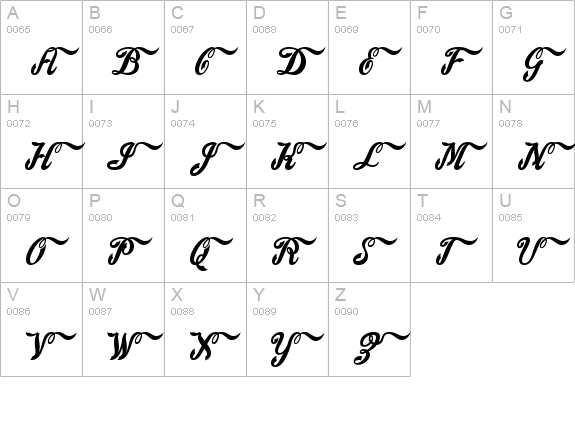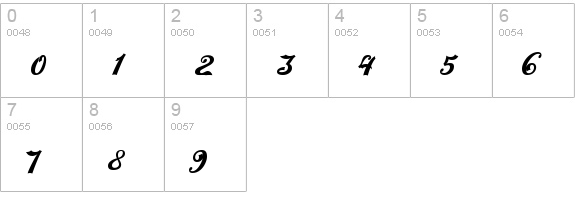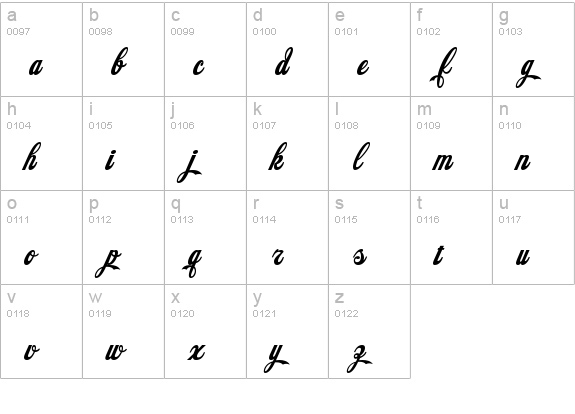
American Pop Two Font Details
American Pop Two font is a vibrant and dynamic typeface that captures the essence of American pop culture. Its bold and playful design makes it perfect for eye-catching headlines, posters, and branding projects. The font features a unique mix of retro and modern elements, giving it a nostalgic yet contemporary feel. What sets American Pop Two font apart is its versatility and ability to stand out in a variety of design applications. Whether you're working on a vintage-inspired project or a modern campaign, this font will add a touch of personality and flair. Best of all, American Pop Two font is available for free download at FontsMarket.com. This means you can easily access this stylish and impactful font without any cost, making it a valuable addition to your font collection. Don't miss out on the opportunity to enhance your designs with the bold and expressive American Pop Two font!